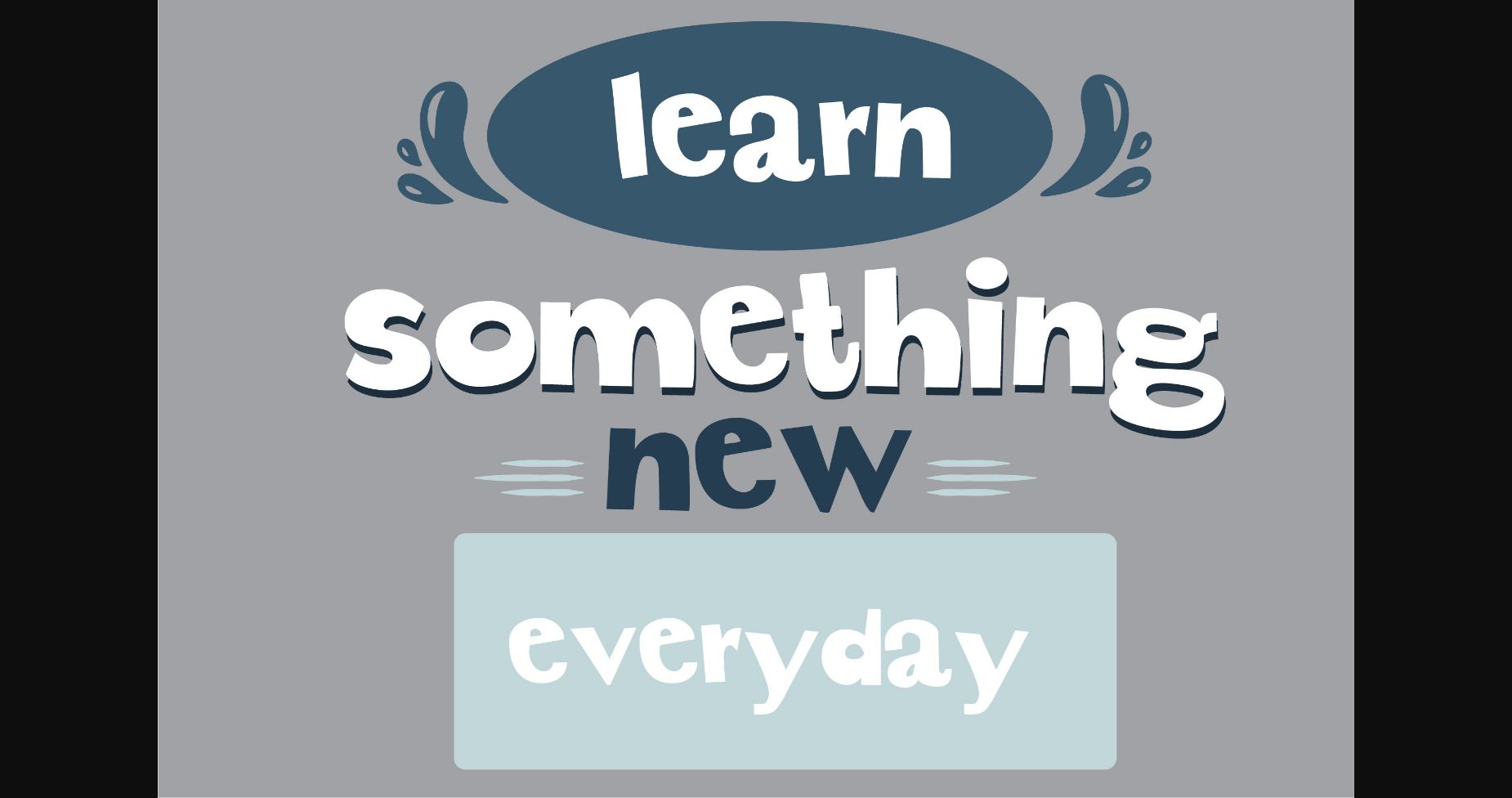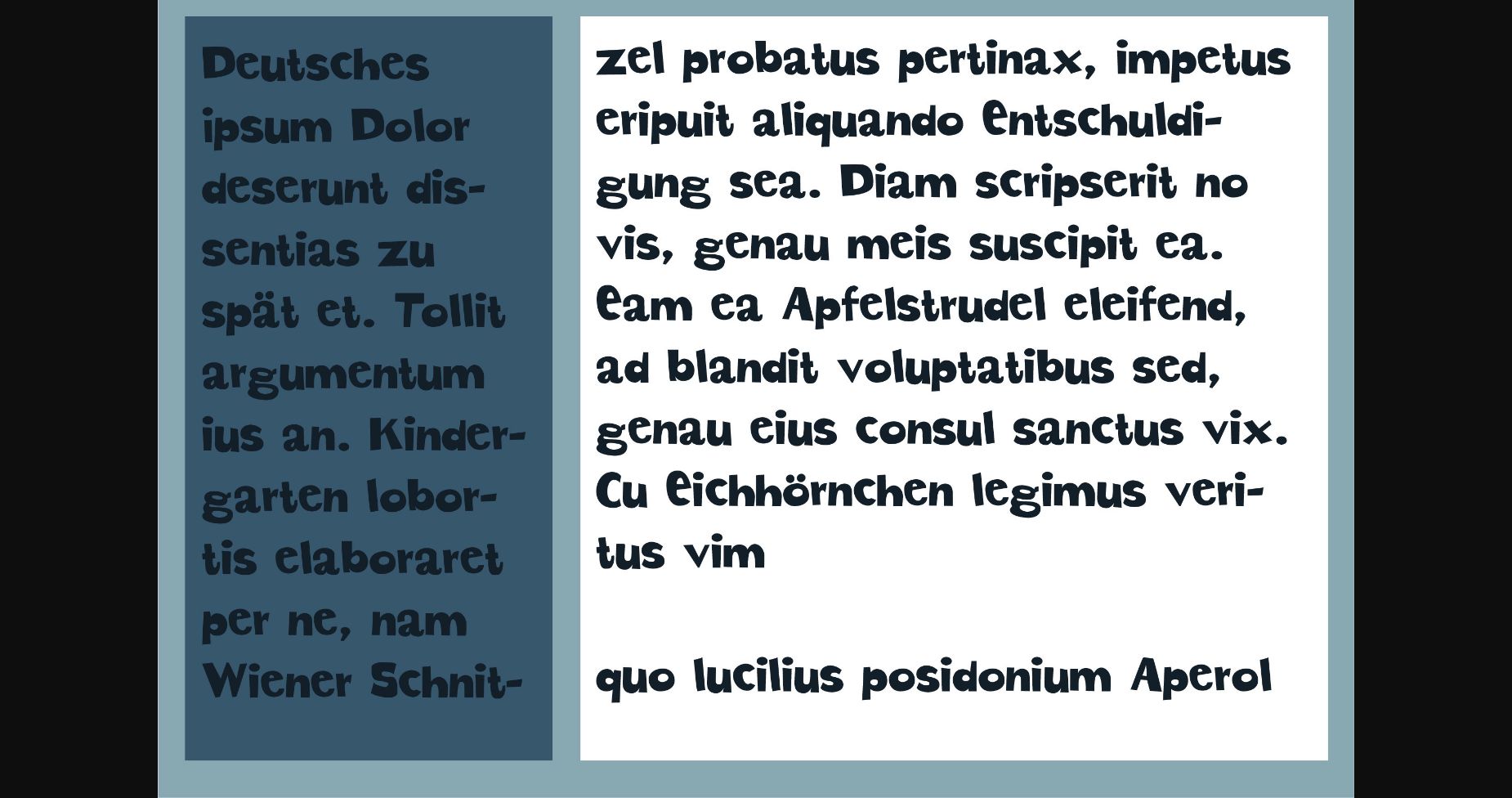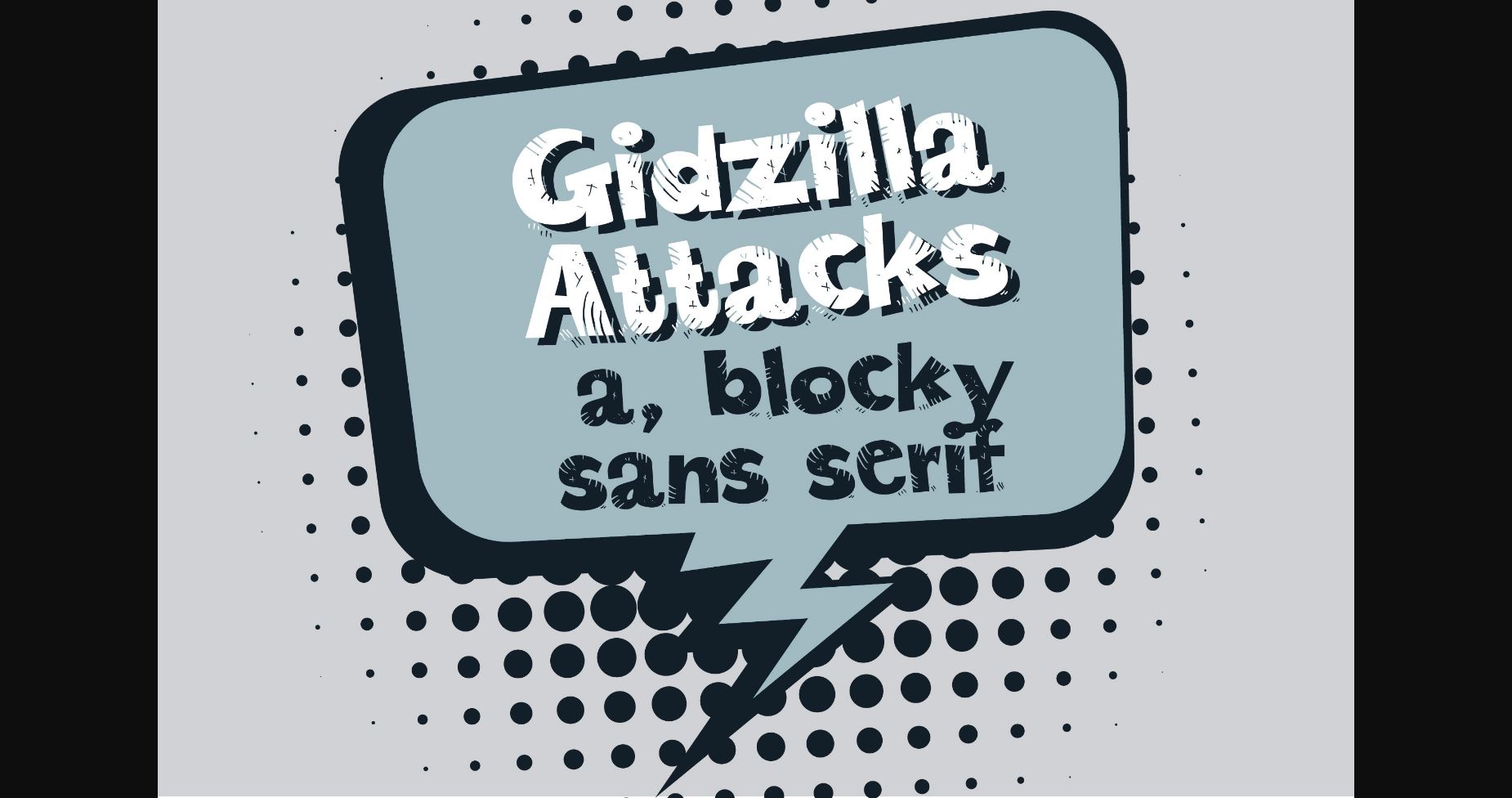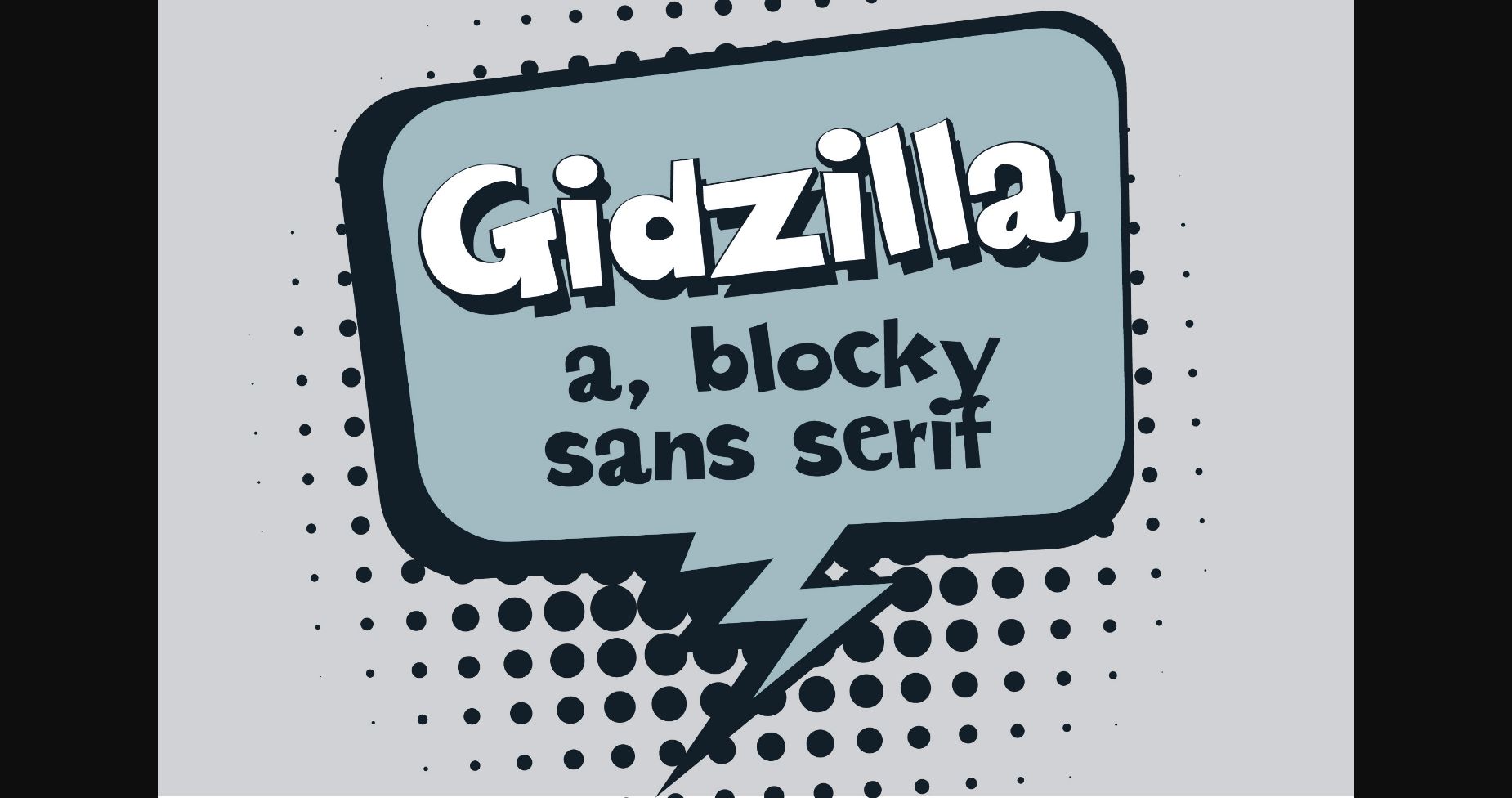
About Gidzilla Font
This blocky typeface is a heavy sans serif. One of its styles comes with scratches and scars so you can add some life to your projects. It also has an outlined version for a more sporty look!